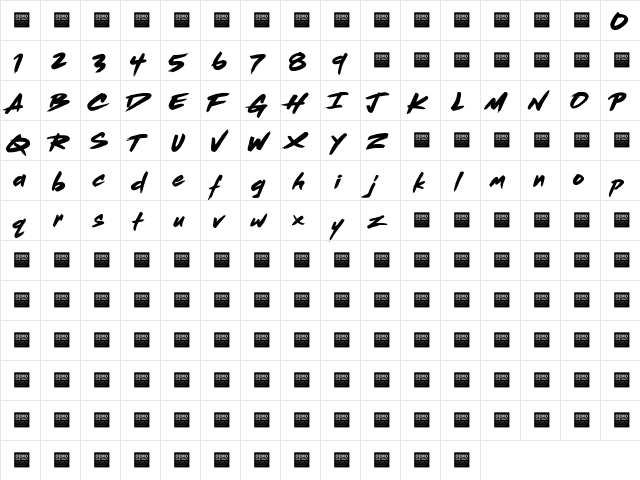
Dead Stock - Demo Regular
Design Context for Dead Stock - Demo Typeface
Dead Stock - Demo is a composed and adaptable typeface that performs quietly and consistently across a wide range of design contexts.